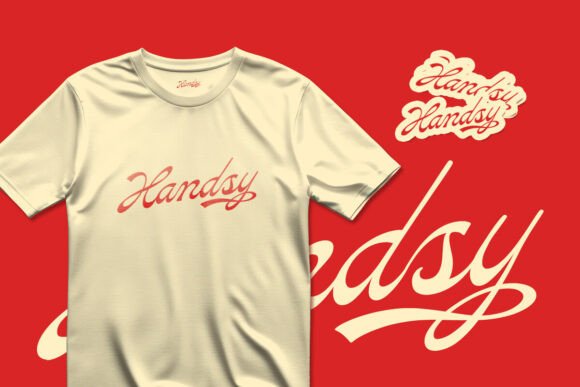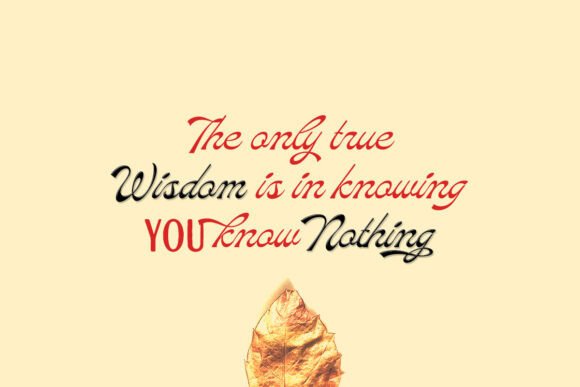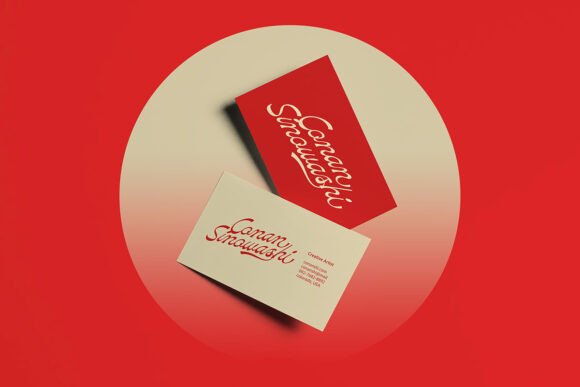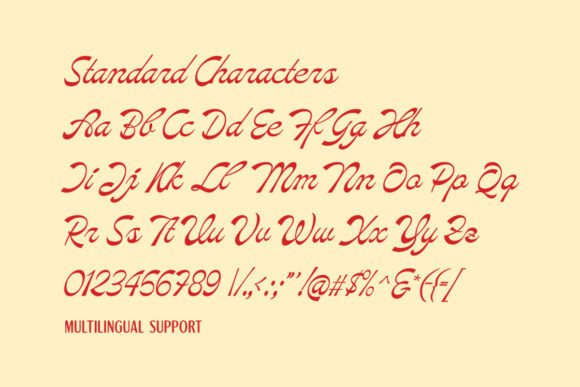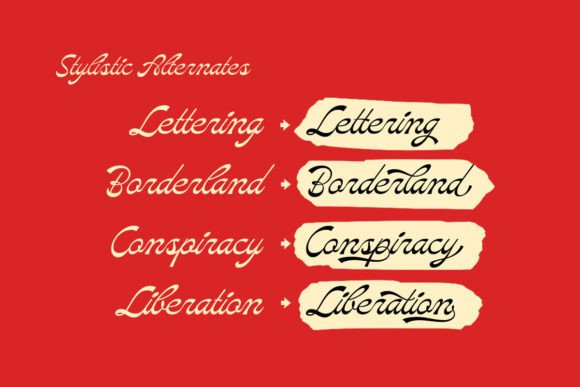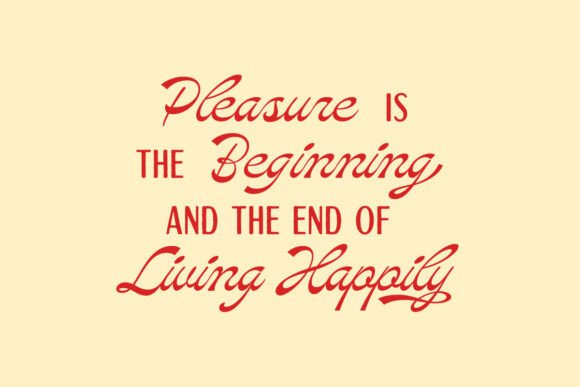
Introduction to Marlean Font
Marlean is a charming reversed-contrast script font that radiates elegance and nostalgia.
Designed by Letterhend Studio, this font blends vintage aesthetics with a modern touch, making it perfect for sophisticated branding, logos, packaging, and editorial designs The warm and timeless vibe of Marlean makes it suitable for retro-inspired designs, romantic themes, or any project that demands a personal and stylish feel.
Key Features of Marlean Font
Why Choose Marlean Font?
Marlean Font offers exceptional quality and versatility, making it a valuable addition to your design toolkit. Whether you’re creating for personal projects or commercial use, Marlean Font delivers professional results.